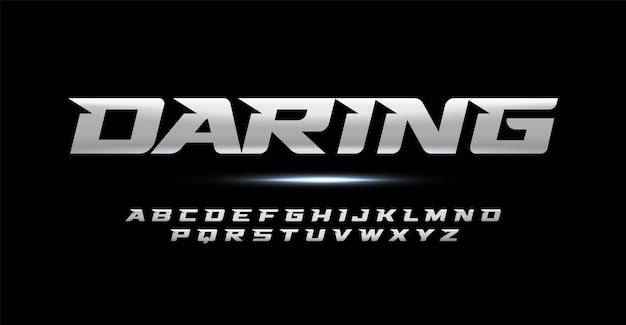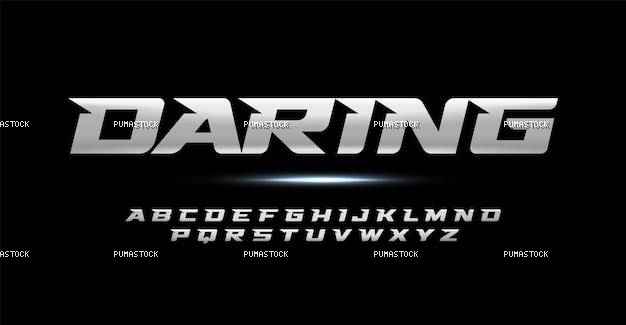
speed metallic alphabet dynamic letters energetic sport font for car racing logo automotive headline racer branding game typographic powerful action design vector typography